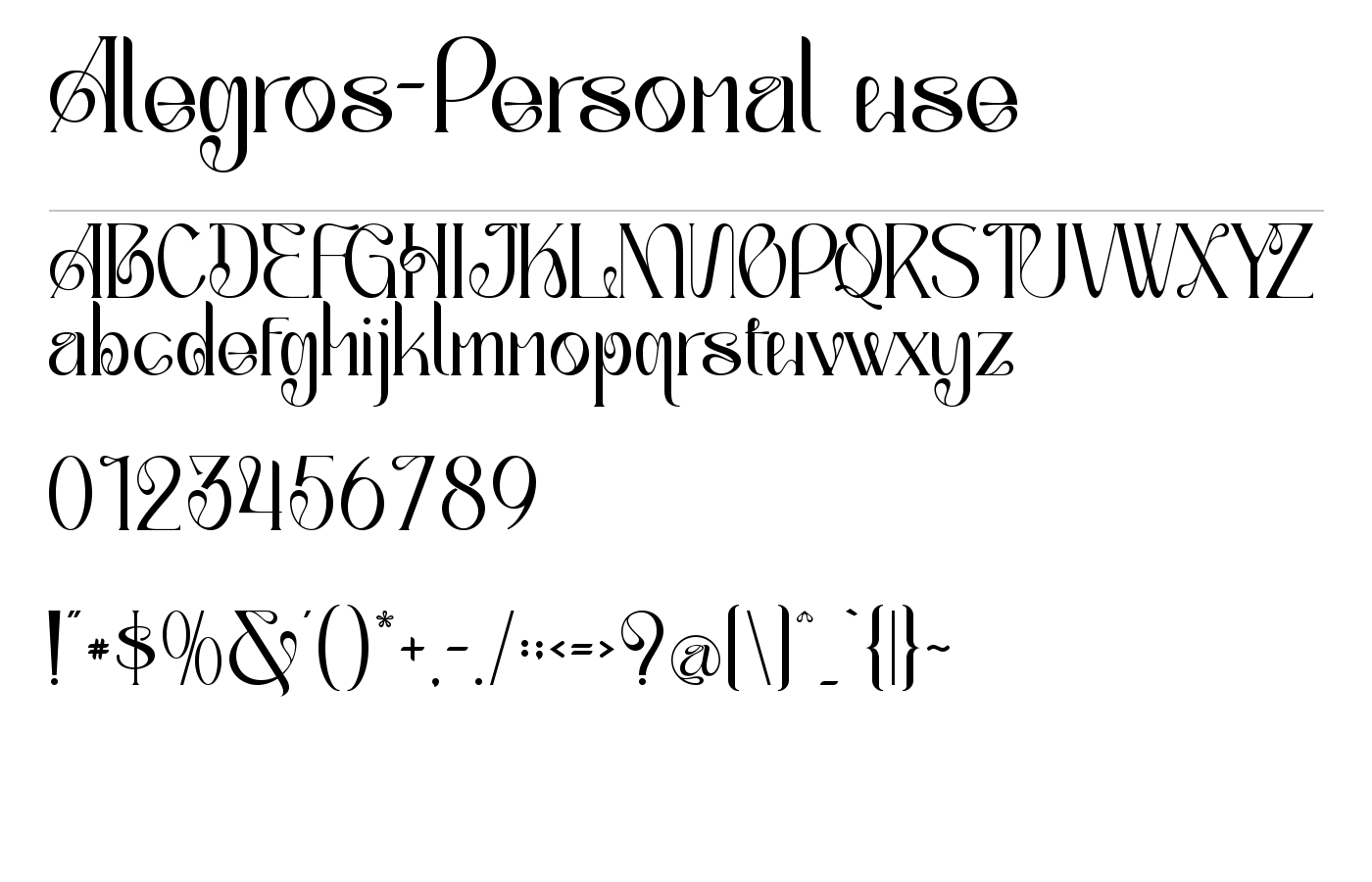
Alegros-Personal use is a decorative serif font that blends elegance with artistic flair through its slender strokes and distinctive curled terminals. With high contrast and a tall x-height, it exudes a sophisticated yet playful personality, making it ideal for stylish branding, editorial headlines, and unique packaging designs. This font’s intricate details and refined shapes capture attention, lending a luxurious and creative vibe to any project.
Alegros-Personal use Font
About Alegros-Personal use Font